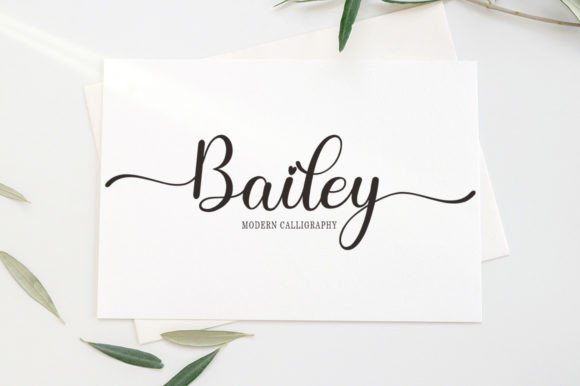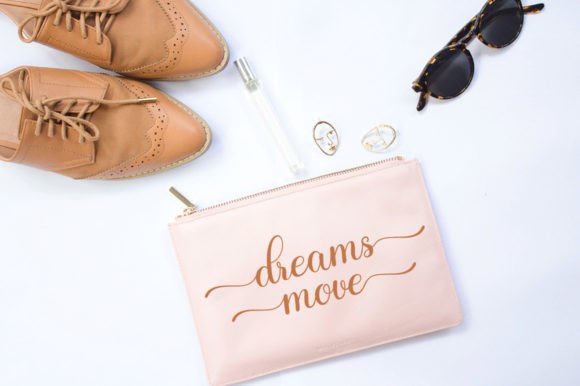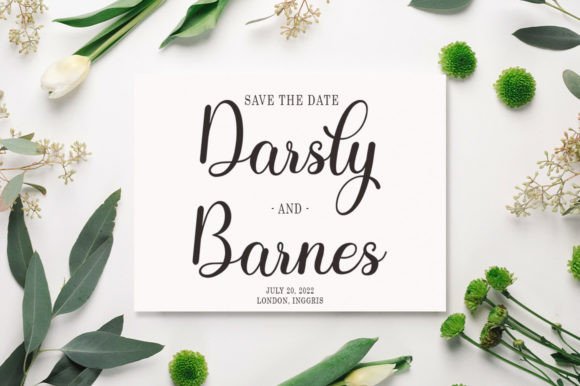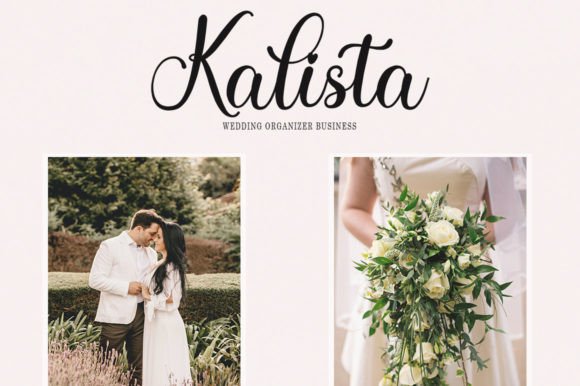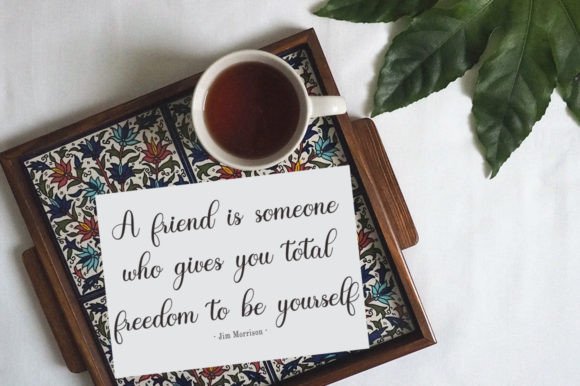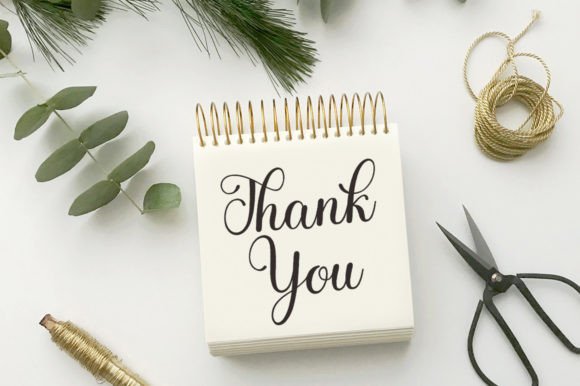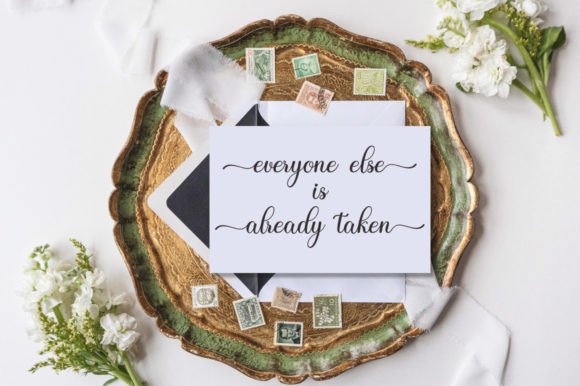
Bailey Font
About Bailey Font
“Bailey” is not just a font; it’s a beautiful script typeface infused with a romantic theme. With its versatile style, this font is designed to evoke admiration and create spectacular designs that capture the essence of romance.
The charm of “Bailey” lies in its romantic script design. Each letter is crafted with a sense of beauty and elegance, making it an ideal choice for projects that demand a font with a romantic and sophisticated appeal.
One notable feature of “Bailey” is its PUA encoding, allowing easy access to the glyphs and swashes. This means you can add special characters and flourishes effortlessly, enhancing the visual richness of your designs.
The versatility of “Bailey” becomes evident in its adaptability to various design contexts. Whether used for wedding invitations, love quotes, branding, or any other romantic project, this font confidently fits into a diverse range of creative applications.
Imagine “Bailey” gracing a romantic wedding invitation, where its script adds a touch of love. Picture it in love-themed quotes, creating a visually delightful and romantic atmosphere. “Bailey” becomes a font that not only looks beautiful but also enhances the overall visual appeal of your designs.
In summary, “Bailey” is a design asset that brings a romantic and versatile touch to your creative projects. Let it be the choice for adding elegance to your romantic designs, invitations, and more. With “Bailey,” every project becomes an opportunity to showcase the beauty of script typography with a romantic twist.